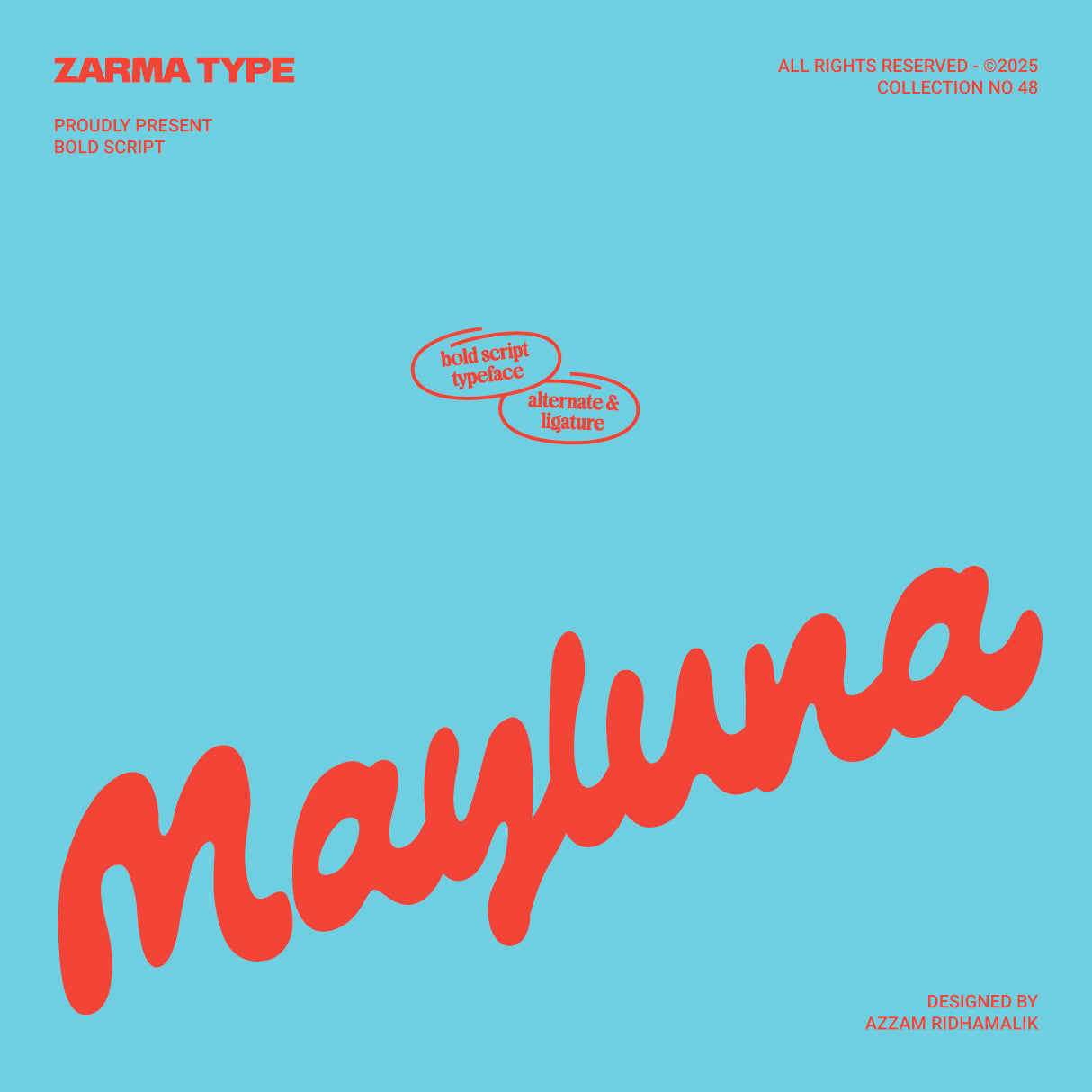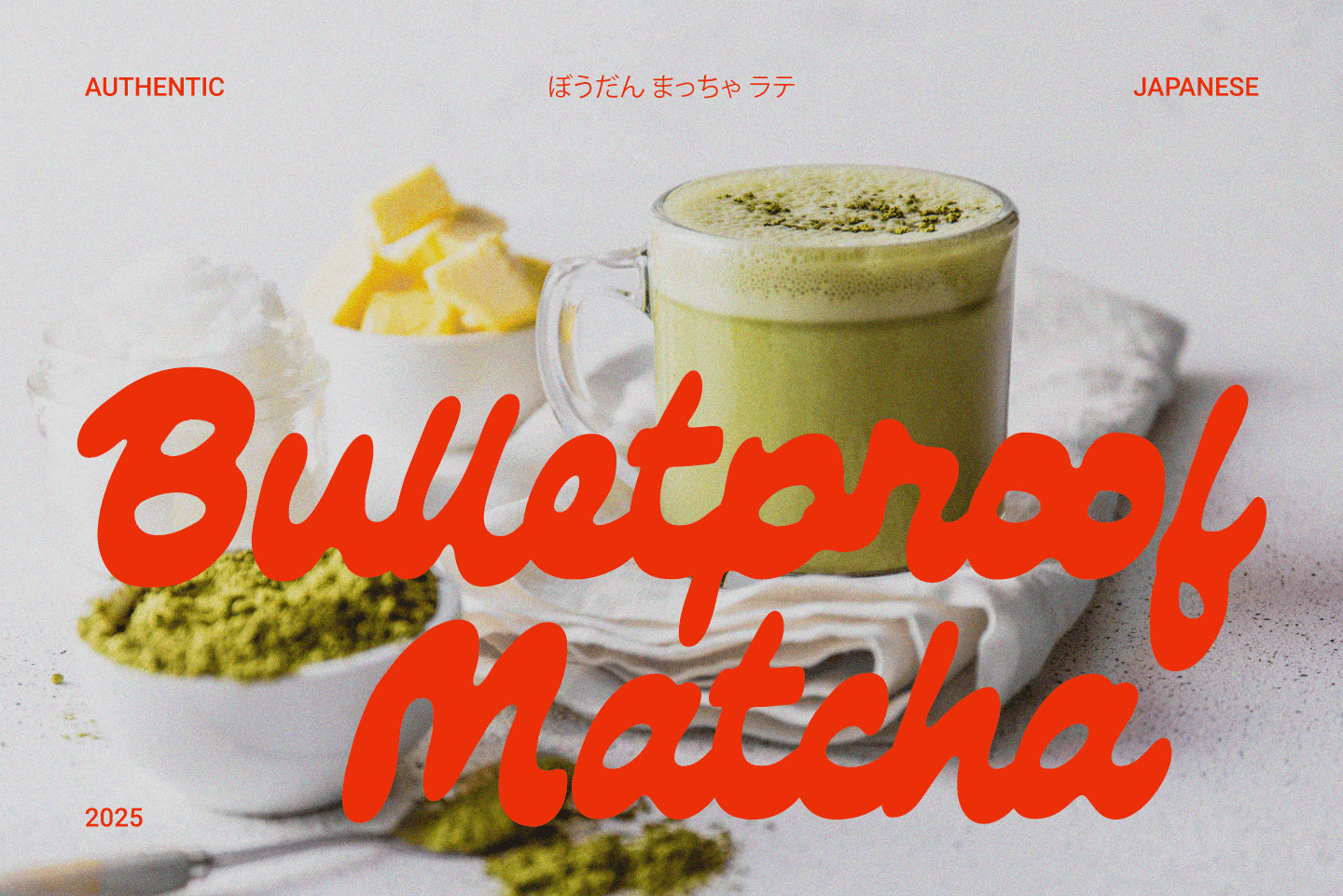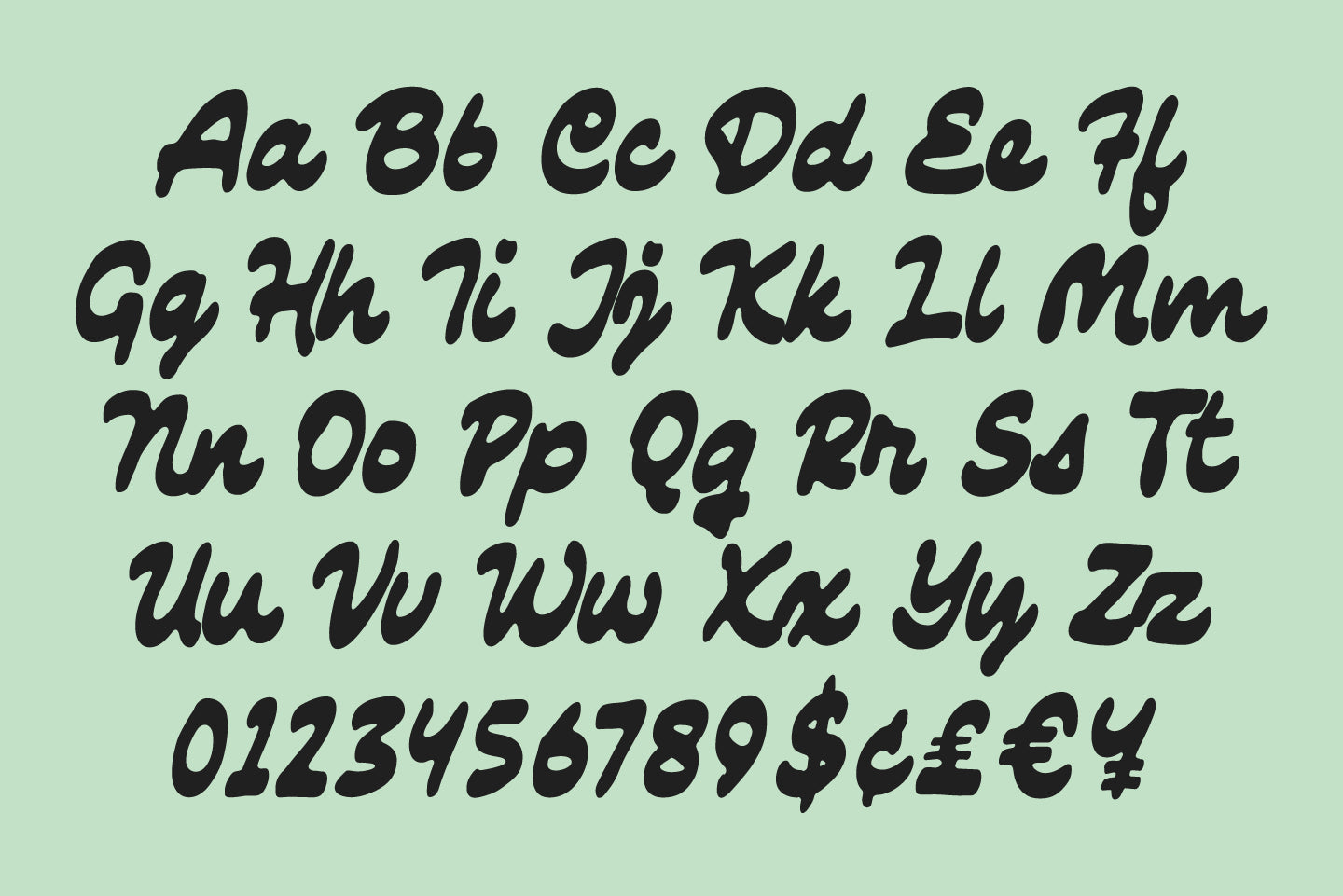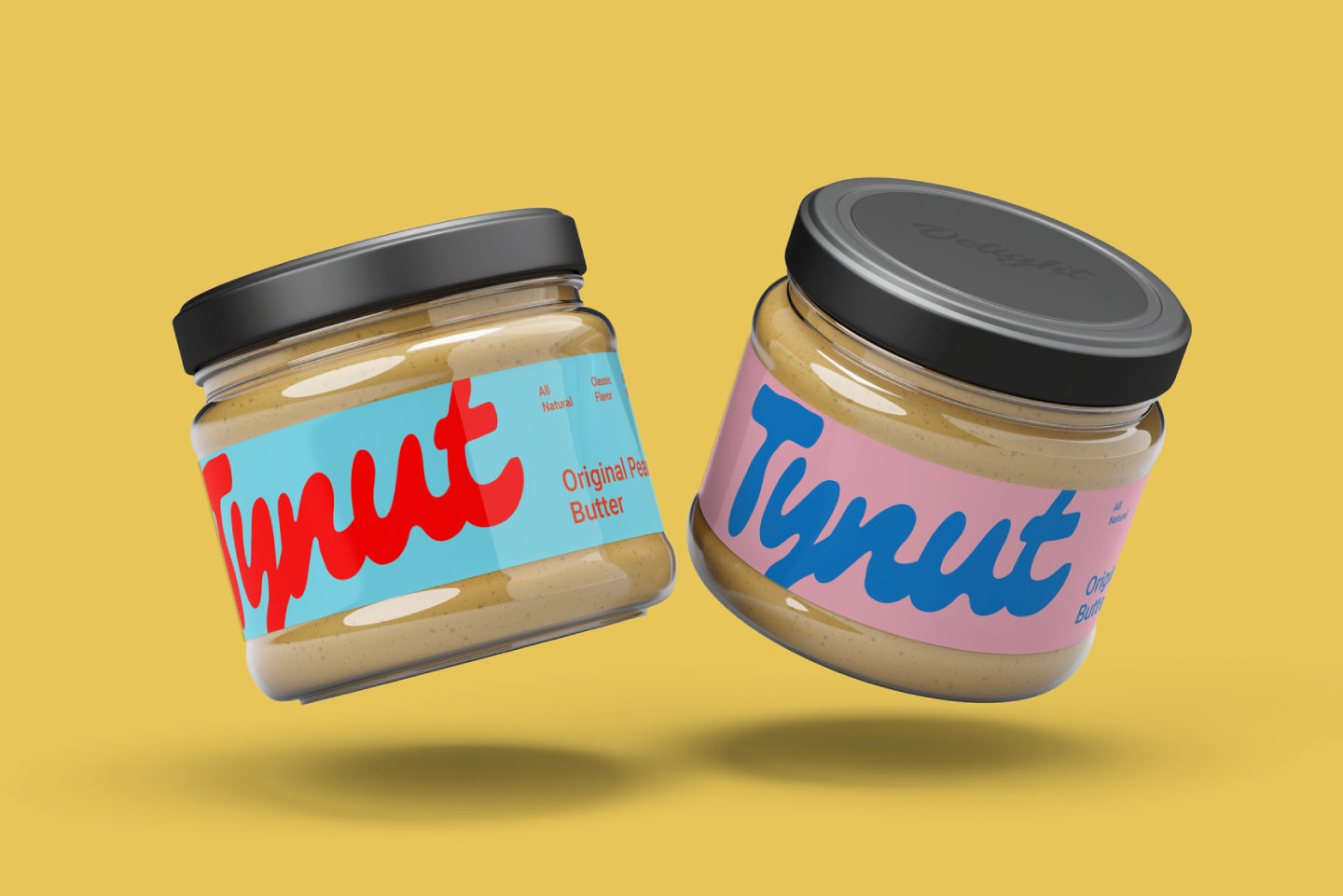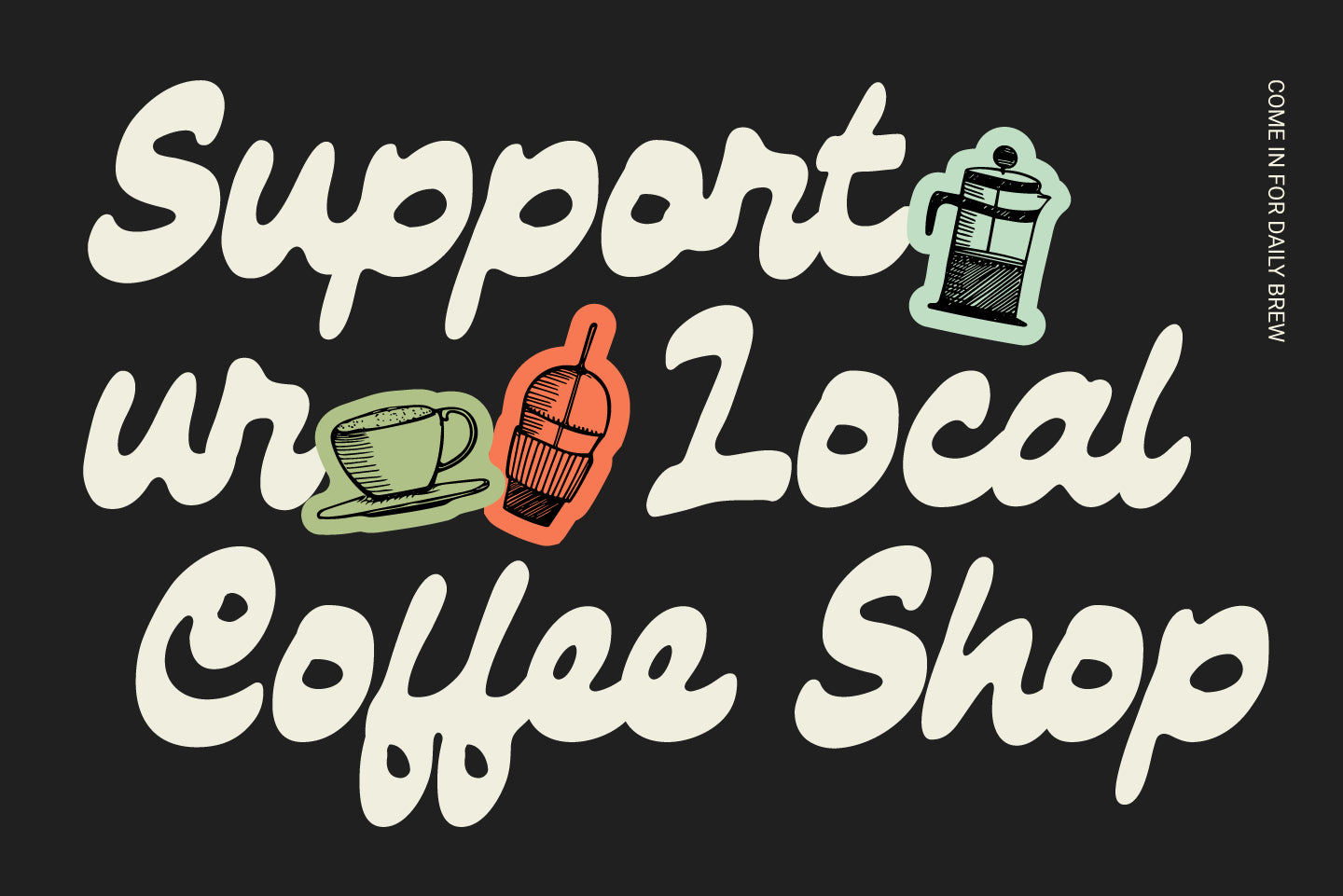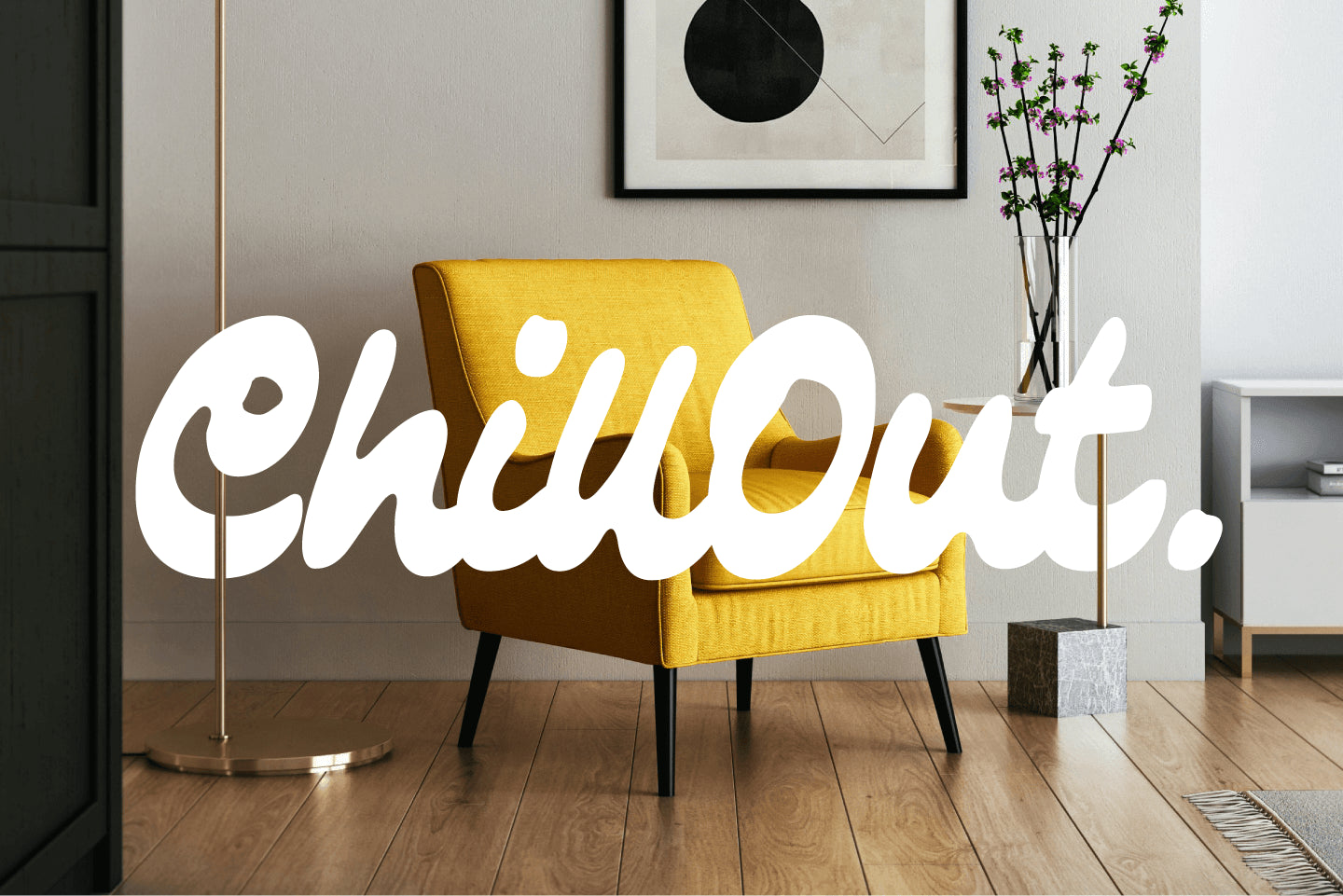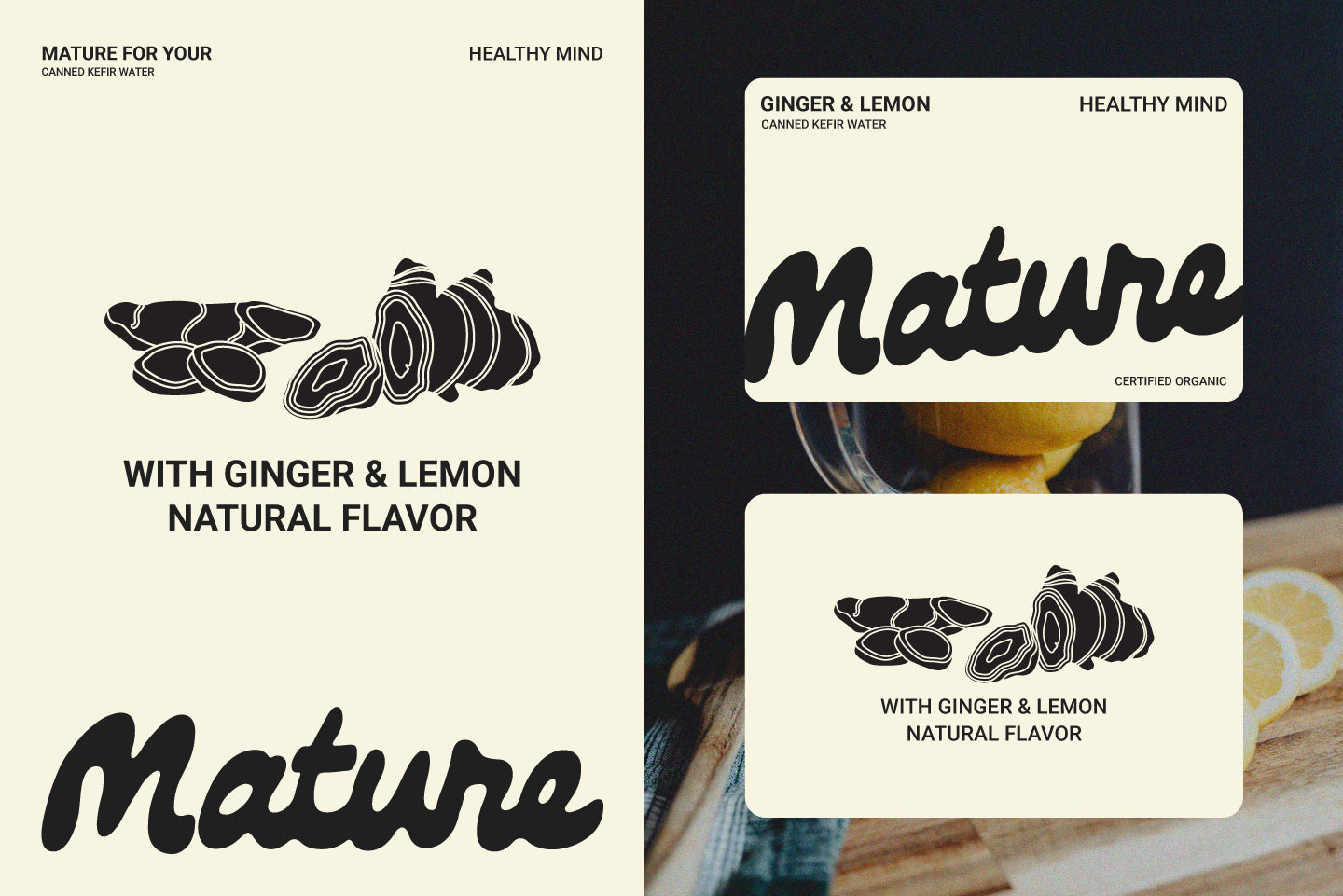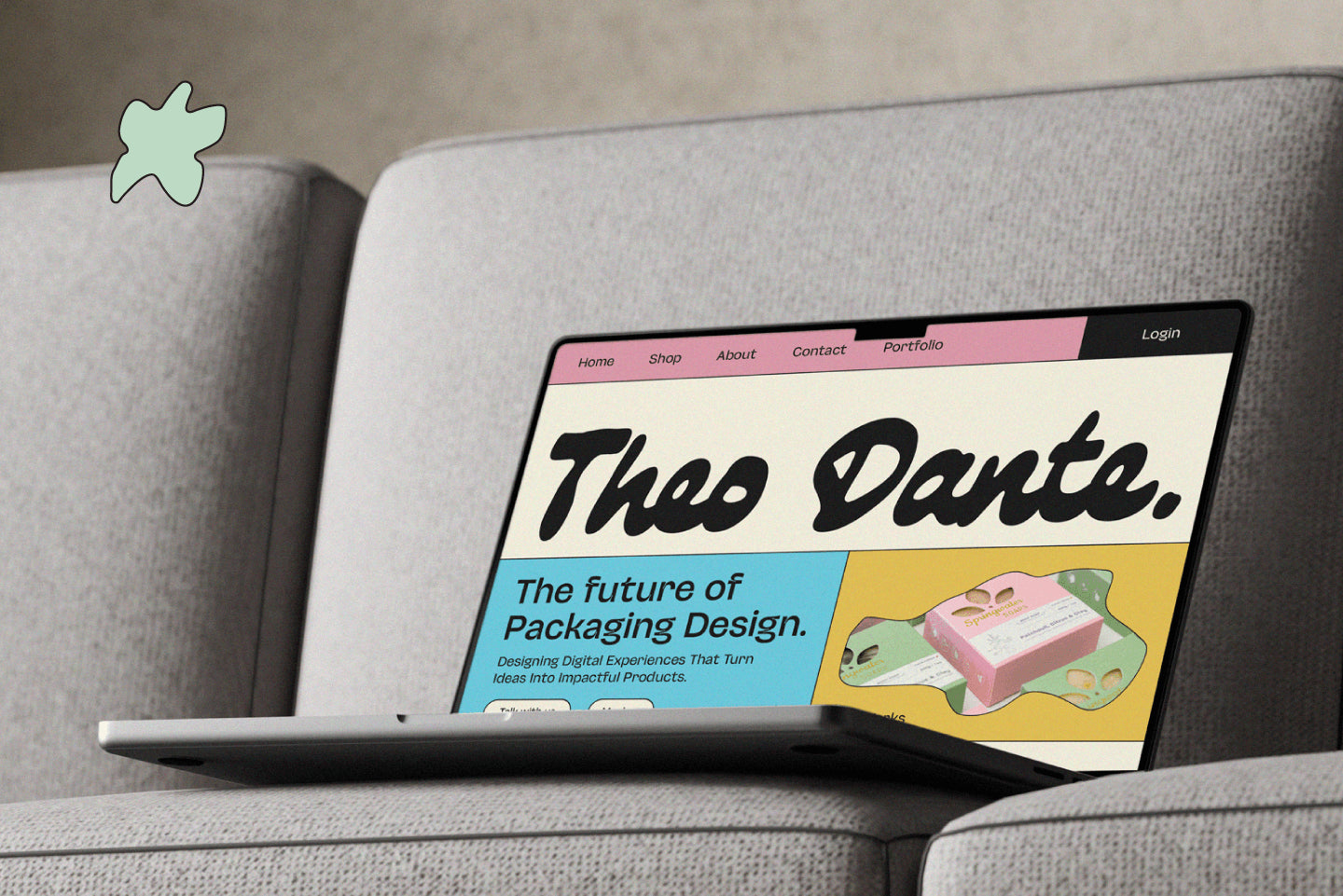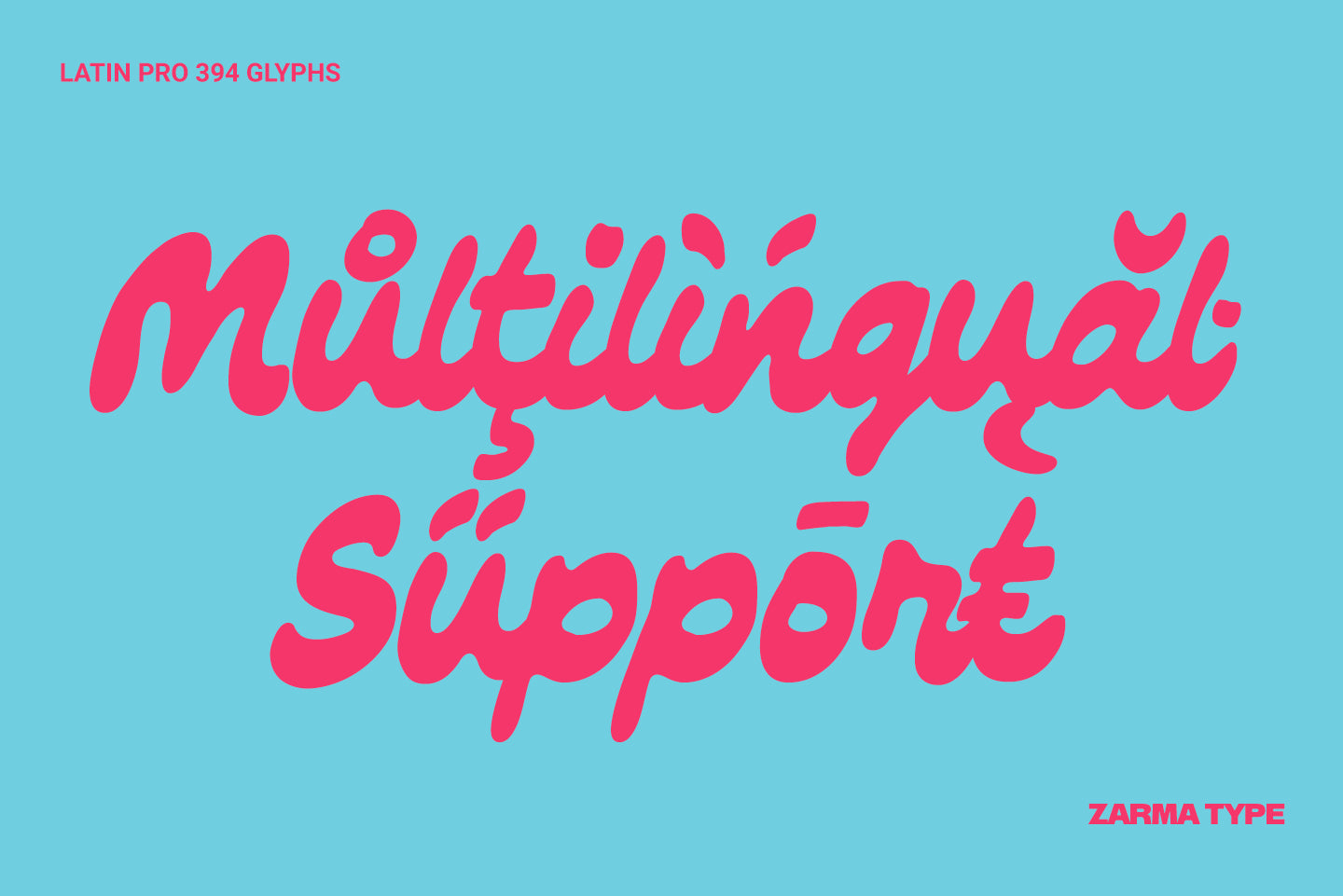
Mayluna Font
Mayluna is a delicious Bold Script Font and the playful sister of Chunko Bold, created to bring warmth, personality, and bold charm into every design. With juicy curves, handcrafted strokes, and smooth ligatures, Mayluna blends retro character with a fresh modern attitude, making it perfect for branding, logos, packaging, editorial layouts, social media graphics, café identities, restaurant menus, food and beverage branding, posters, and typography-focused digital content. Inspired by the bold minimalism trend, it shines in clean layouts where expressive typography takes center stage.
Designed for both creativity and versatility, Mayluna includes Multilingual Support, PUA Encoded Characters, Stylistic Alternates, Standard & Discretionary Ligatures, and a Complete Punctuation Set for professional typography. Whether you're building a bold brand identity or creating warm, inviting visuals, Mayluna delivers the perfect balance of playful energy, handcrafted elegance, and modern simplicity.
Mayluna Font is a bold script typeface featuring handcrafted strokes, smooth ligatures, and juicy curves, designed to combine retro character with a modern aesthetic. It includes multilingual support, PUA encoded characters, stylistic alternates, standard and discretionary ligatures, and a complete punctuation set, making it suitable for various design applications.